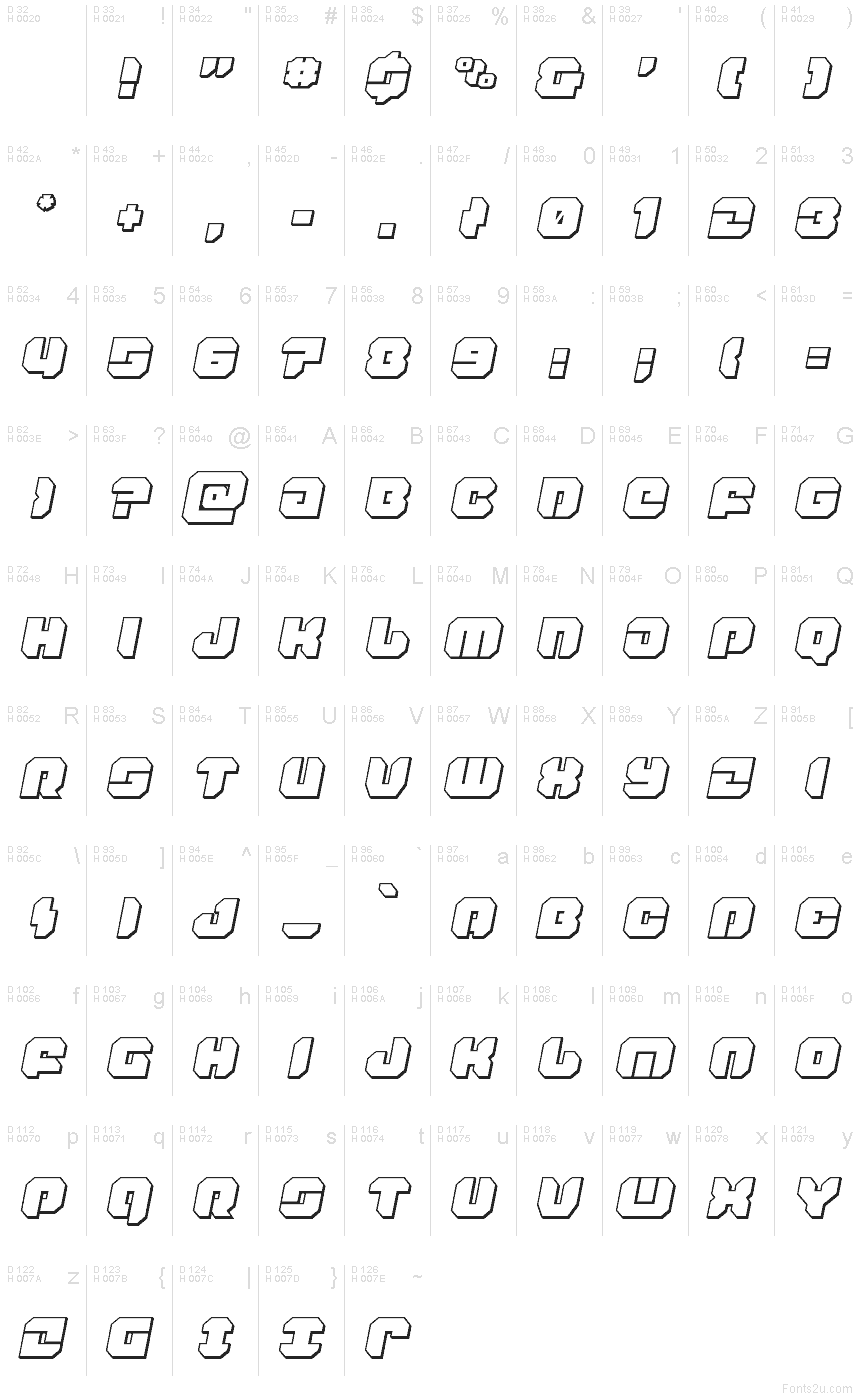
Krieger 3D Italic font by Iconian Fonts is a free 3D techno typeface that throws every word forward like it’s caught mid-boost. Chunky, beveled letterforms, tight spacing, and that sharp italic slant create a sense of motion, as if the Krieger family has been stamped out of metal plating and tilted toward the future. The hollow, outlined style keeps it feeling light despite its bulk, giving you a bold, mechanical voice without feeling heavy or cluttered.
Using Krieger 3D Italic, you get a ready-made logo engine for gaming covers, esports branding, sci-fi posters, tech event titles, YouTube thumbnails, and bold stickers or merch. This free font shines when it’s set large and given room to breathe, so let it own your main headline and pair it with a clean geometric sans for supporting text.